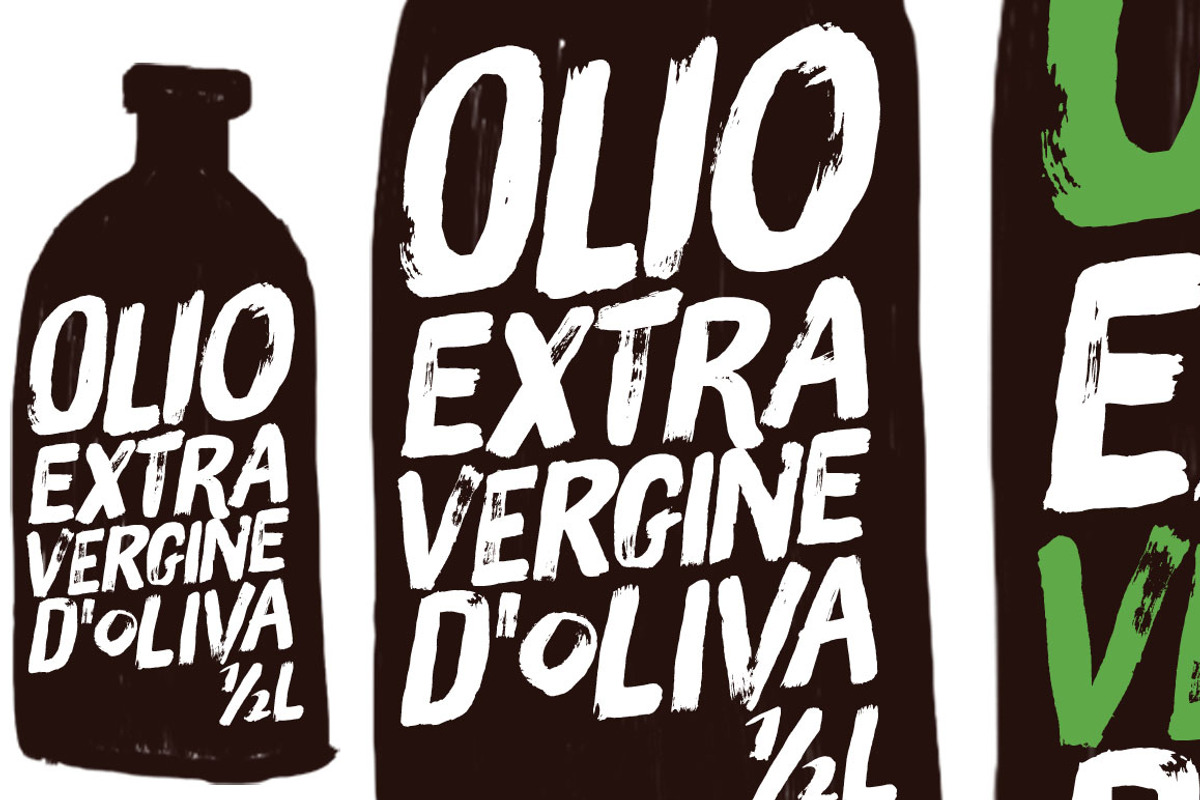
Meet Brush Up — the handpainted typeface that brings the raw, authentic energy of a brushstroke directly to your digital canvas. Every letter is meticulously crafted from real brushwork, captured on paper and transformed into a digital powerhouse. This isn’t just a font — it’s a creative catalyst, designed to spark imagination and elevate your projects with a unique, expressive flair. Whether you’re building a brand identity, designing social media content, or creating bold visual statements, Brush Up delivers the artistic punch your work deserves.
The Power of Spontaneity, Perfected Digitally
Brush Up was born from the spontaneous rhythm of real hand-painting. Each character was brushed onto paper with intention, then digitized to preserve the natural variation, subtle imperfections, and dynamic flow that make handmade work truly captivating. The result? A font that feels alive — not rigid, not repetitive, but alive with personality and motion.
- 3 Glyph Variants per Letter: Each lowercase and uppercase letter features three distinct style options, ensuring visual diversity and preventing monotony.
- 2 Glyph Variants per Number: Even your numerals stand out with artistic flair, perfect for pricing, dates, or stats.
- Dynamic Punctuation Alternates: Selected punctuation marks include multiple versions to match the artistic flow of your text.
- Smart Contextual Alternates: When your design software supports OpenType contextual alternates (like Adobe Illustrator, Photoshop, or InDesign), the font automatically cycles through available glyphs for a truly organic, handcrafted look.
Or, if you’re the type who loves full control, dive into the glyphs palette and hand-select the perfect variation for each character. The choice is yours — spontaneity or precision. Either way, the result is fresh, vibrant, and uniquely yours.
Perfect for Projects That Demand Personality and Edge
Where does Brush Up truly come alive? In projects where uniqueness, energy, and visual impact matter most.
- Branding & Logos: Create a bold, memorable identity for lifestyle brands, art studios, or fashion labels that stand out.
- Social Media Content: Craft captions, quote graphics, and story posts that stop the scroll with artistry and attitude.
- Event Invitations & Promotions: Add flair to music gigs, art shows, pop-up shops, or seasonal campaigns.
- Merchandise & Packaging: Elevate t-shirts, tote bags, notebooks, and gift boxes with hand-painted charm.
- Digital Art & Illustrations: Use as text overlays in digital illustrations, posters, or NFT projects.
It’s not just a font — it’s a style statement.
Design Pairing: The Perfect Complements for Brush Up
To balance its expressive nature, pair Brush Up with clean, understated fonts that let it take center stage.
- Montserrat – A modern, geometric sans-serif for clarity and contrast.
- Raleway – Thin, elegant lines that highlight handcrafted detail.
- Poppins – Friendly, balanced typography with open spacing.
- Gotham – A neutral, professional foundation for a sophisticated look.
Let Brush Up do the talking. Let the partner stay quiet. Let the design tell a story — loud, raw, and beautifully human.